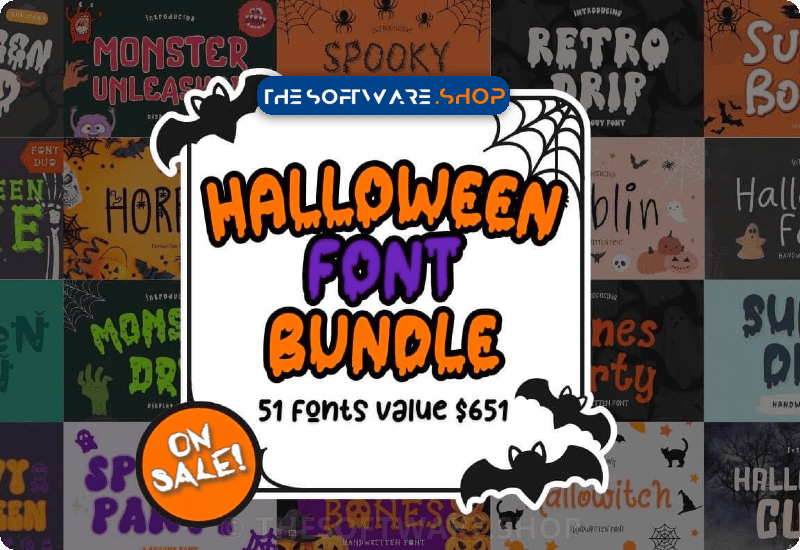
Explore a treasure trove of premium fonts included in this hauntingly beautiful bundle:
- Retro Drip Decorative Font
- Monster Drip Decorative Font
- Skeleton Decorative Font
- Super Drip Decorative Font
- Midnight Bones Decorative Font
- Horror Decorative Font
- Spooky Party Decorative Font
- Mummy Decorative Font
- Witch Broom Decorative Font
- Blood Decorative Font
- Alien Mania Display-Schriftarten
- Halloween Bone Decorative Font
- Blood Spatter Decorative Font
- Drip Groovy Decorative Font
- Hello Bone Display Font
- Witch Cauldrons Decorative Font
- Spider Web Display Font
- Witcher Decorative Font
- Halloween Cob Web Decorative Font
- Halloween Pumpkin Decorative Font
- Helloween Blood Decorative Font
- Halloween Spider Display Font
- Happy Groovy Display Font
- Skull and Bones Decorative Font
- Halloween Ghost Decorative Font
- Little Spider Display Font
- Spooky Boo Decorative Font
- Quick Skull Decorative Font
- Summer Alien Decorative Font
- Koda Display Font
- Lazy Alien Display Font
- Groovy Halloween Decorative Font
- Halloween Cube Display Font
- Bat Bat Decorative Font
- Monstar Decorative Font
- Hello Dripper Decorative Font
- Super Bones Decorative Font
- Dripper Decorative Font
- Zombie Squad Display Font
- Halloween Spider Decorative Font
- Halloween Victory Decorative Font
- Happy Night Display Font
- Bones Party Decorative Font
- Monster Unleashed Decorative Font
- Alien Saliva Display Font
- Hallowitch Decorative Font
- Happy Halloween Decorative Font
- Hugo Script & Handwritten Font
- Galaxy Display Font
- Halloween Face Decorative Font
- Goblin Decorative Font
Imagine the possibilities! With these fonts at your fingertips, you can create captivating Halloween-themed designs, eerie invitations, spooky social media posts, and so much more. Your creativity knows no bounds!